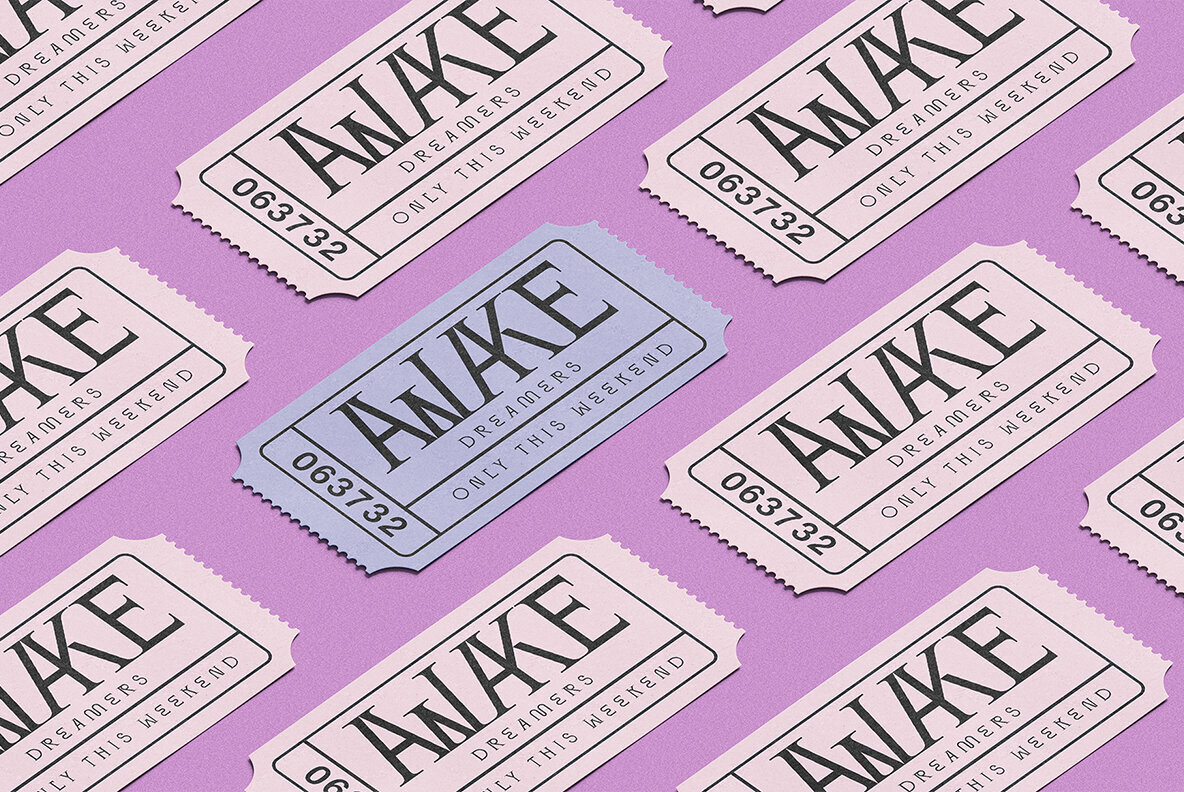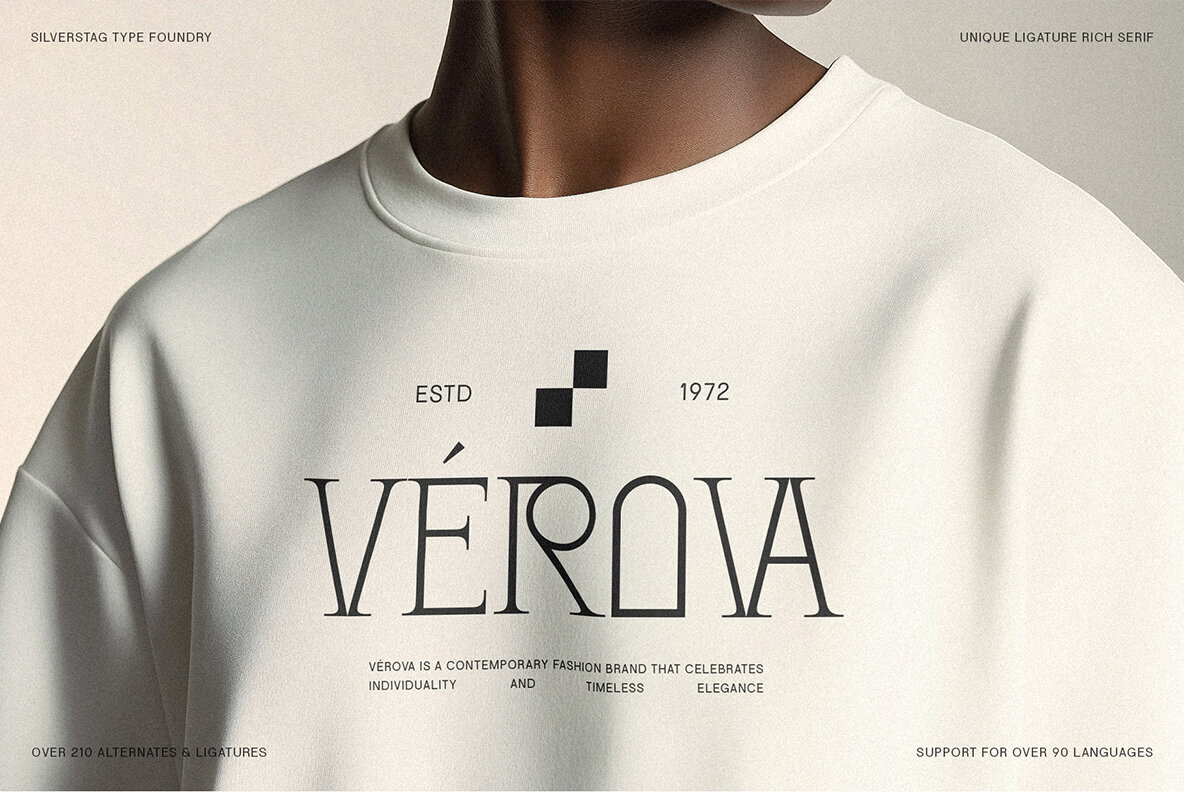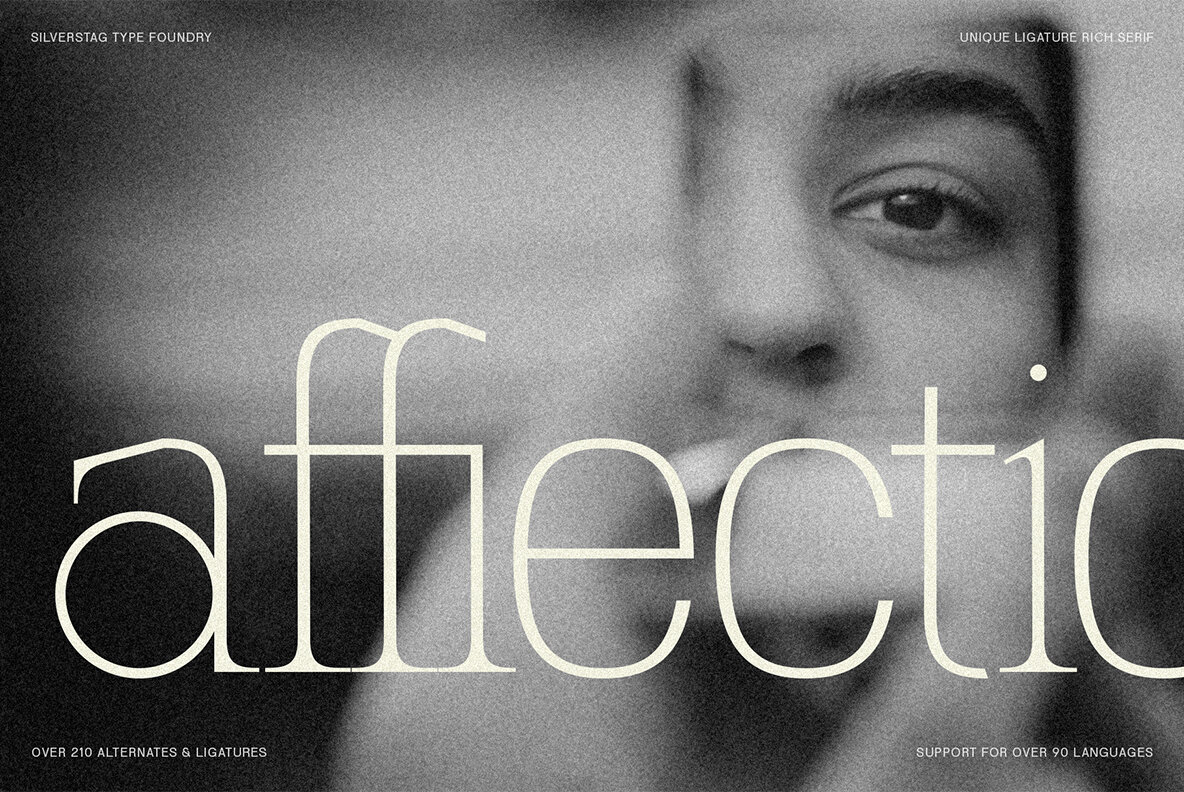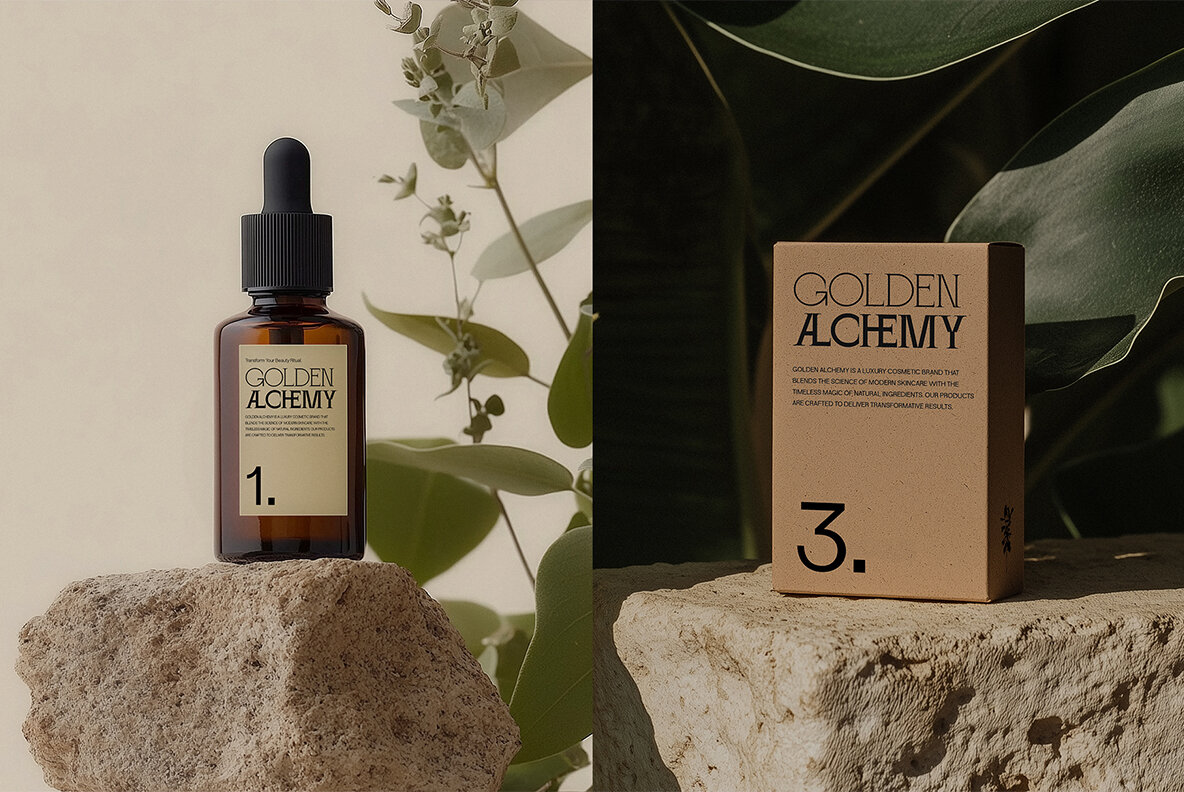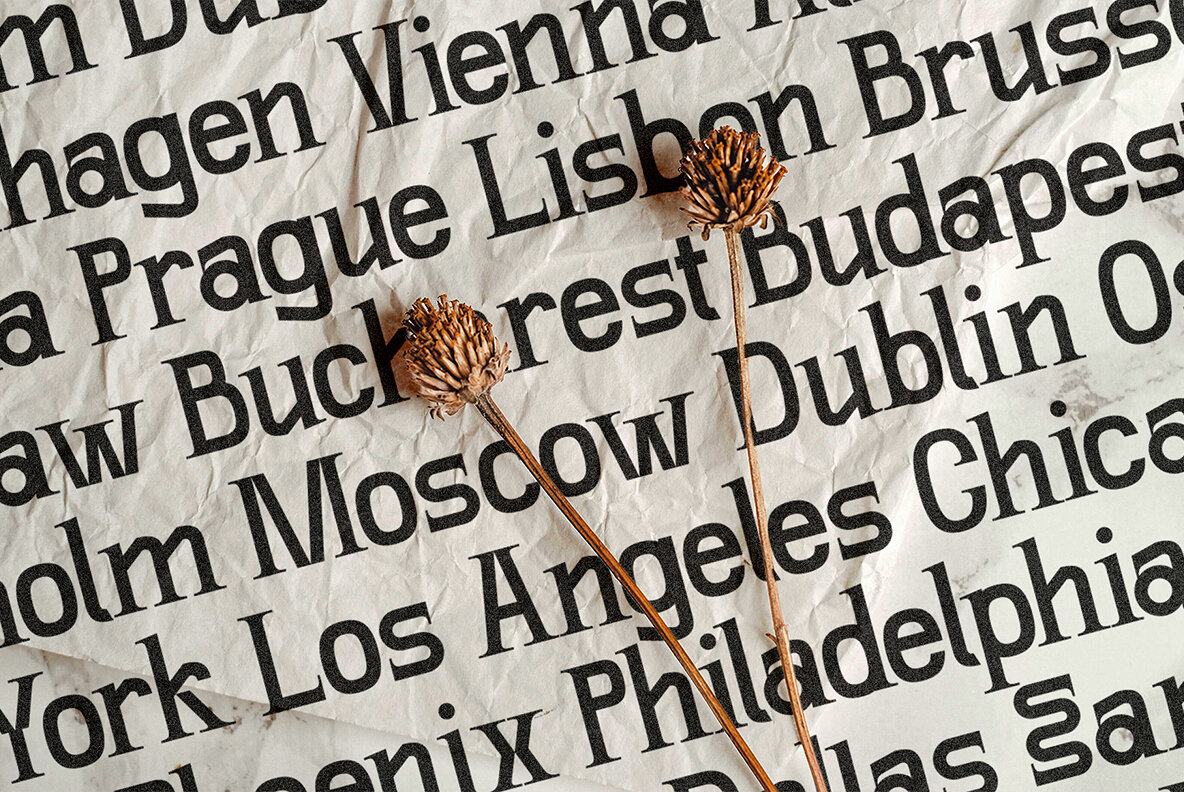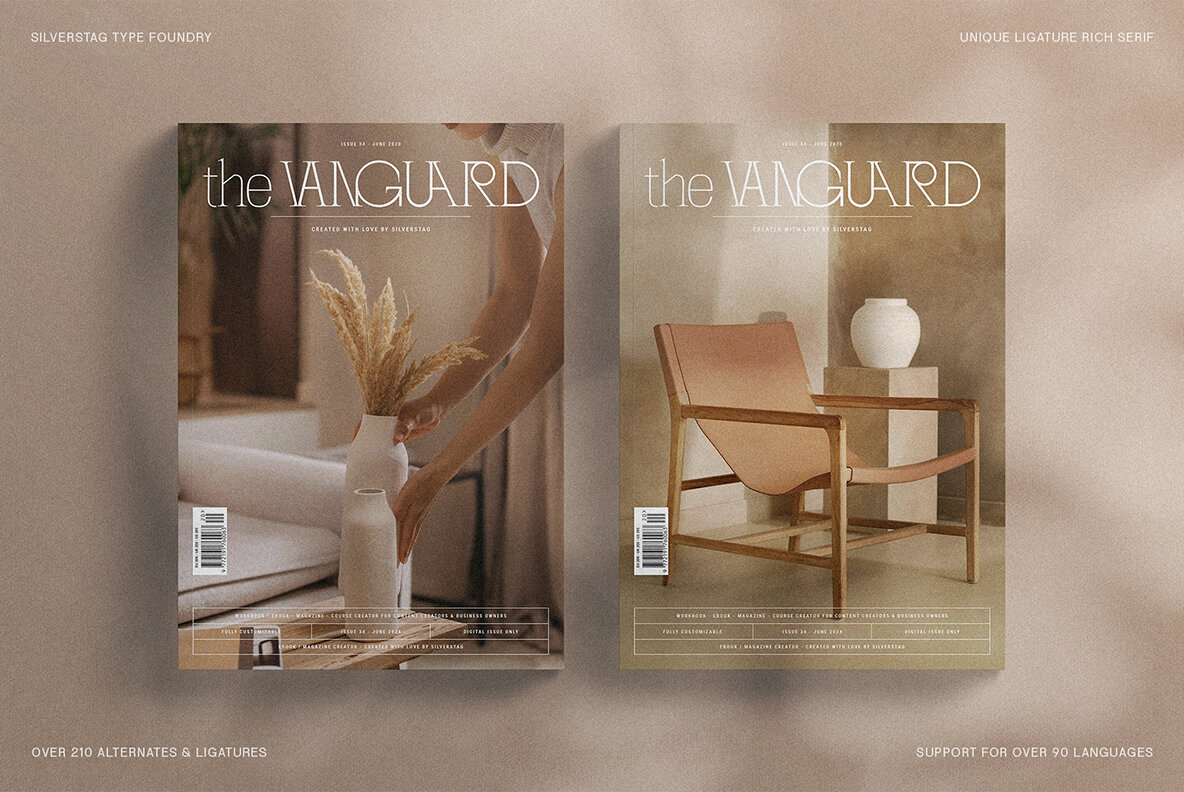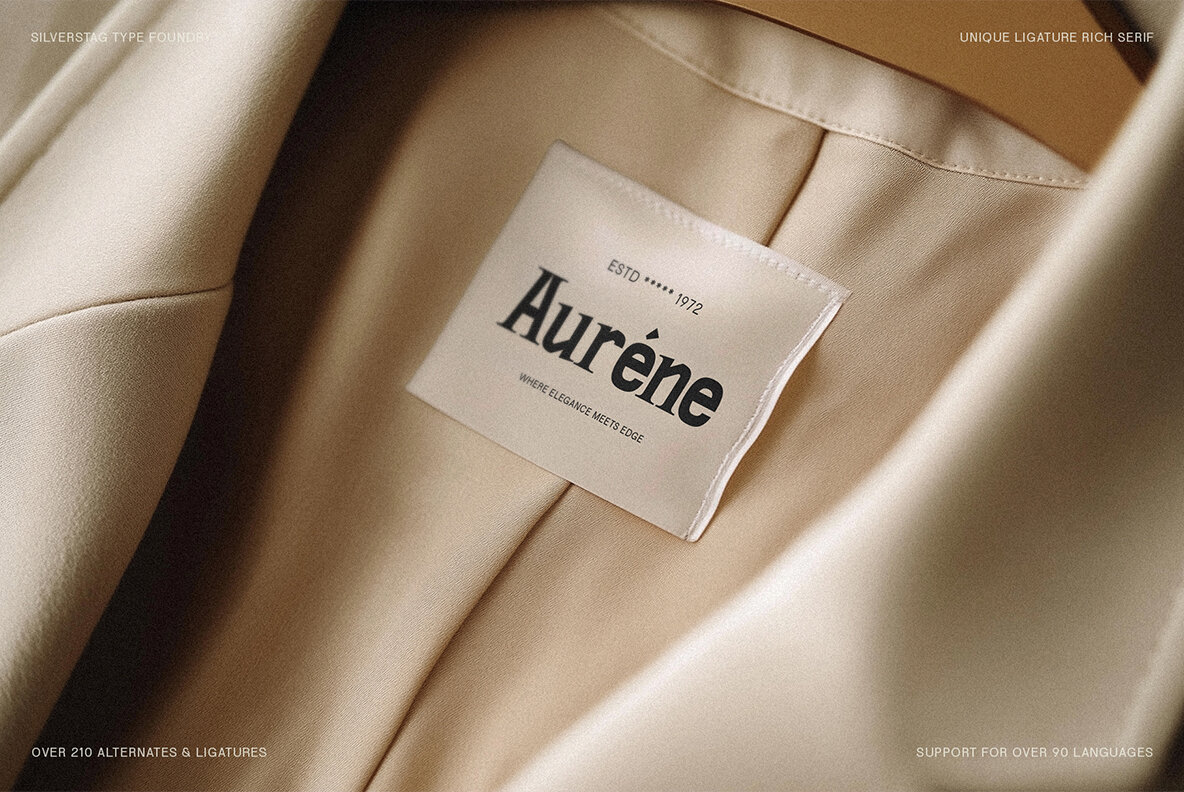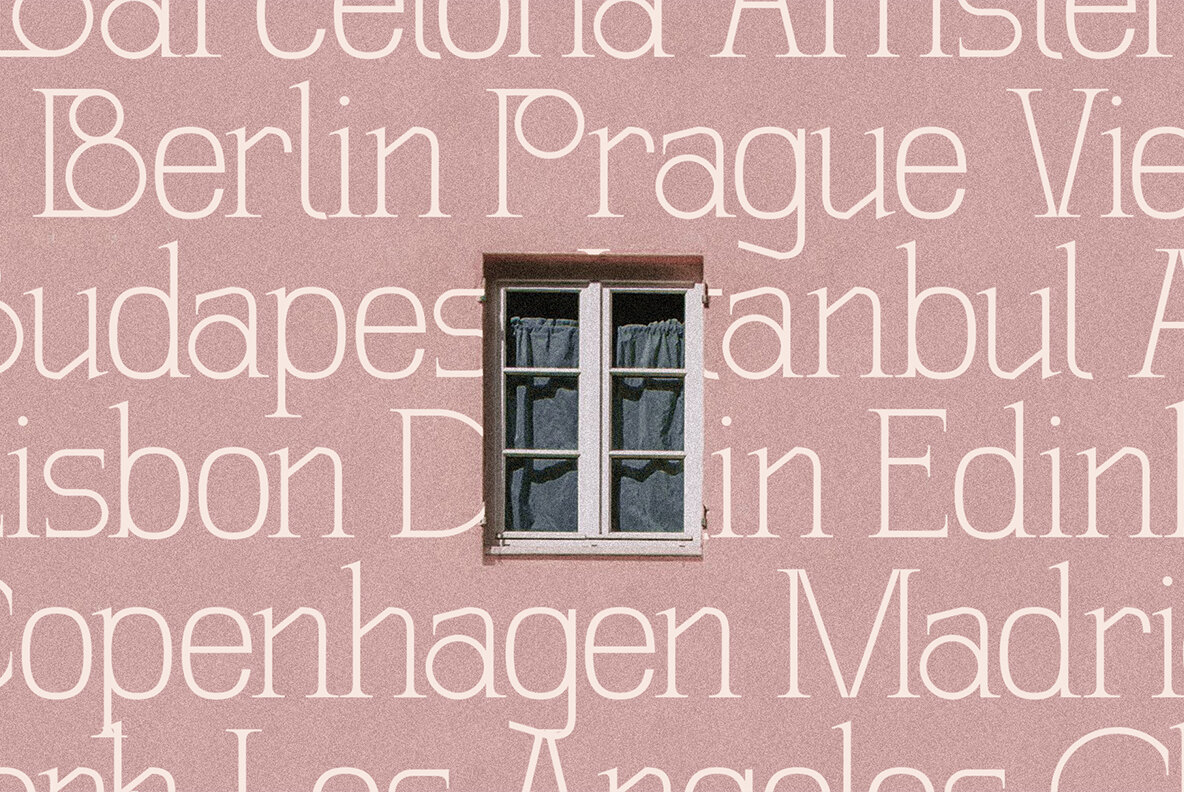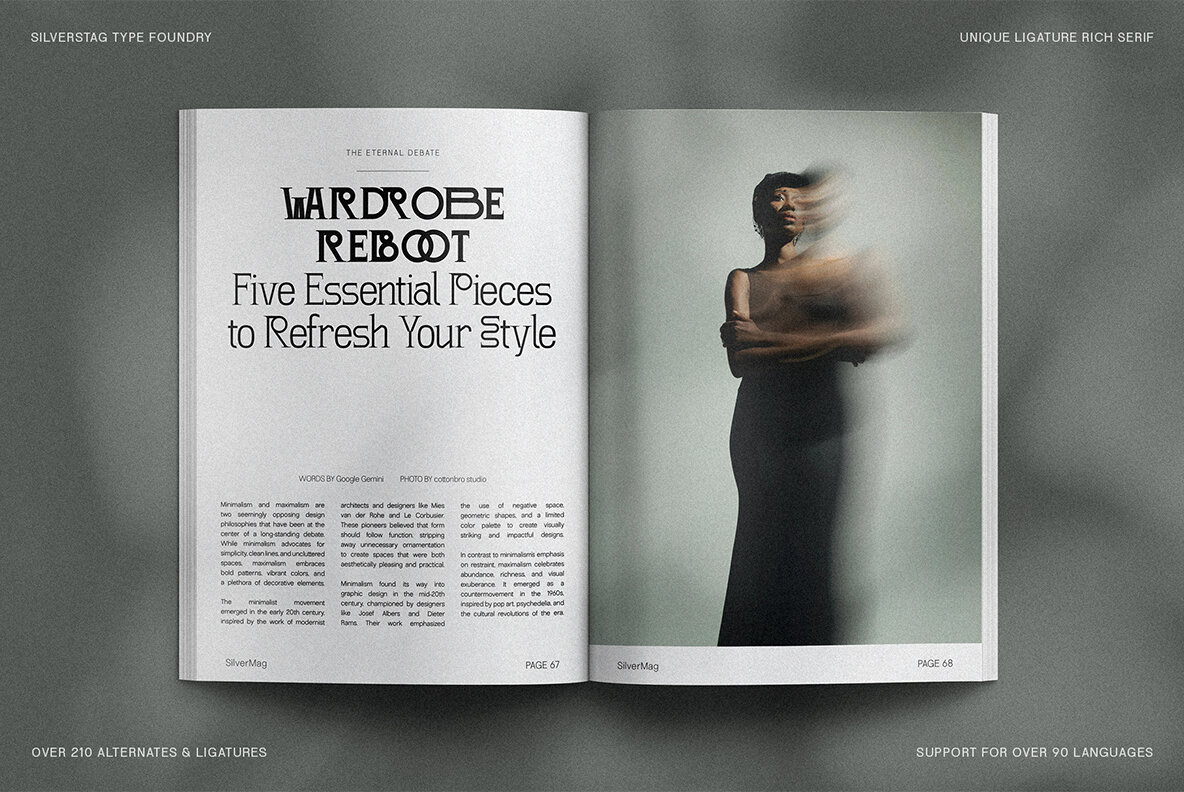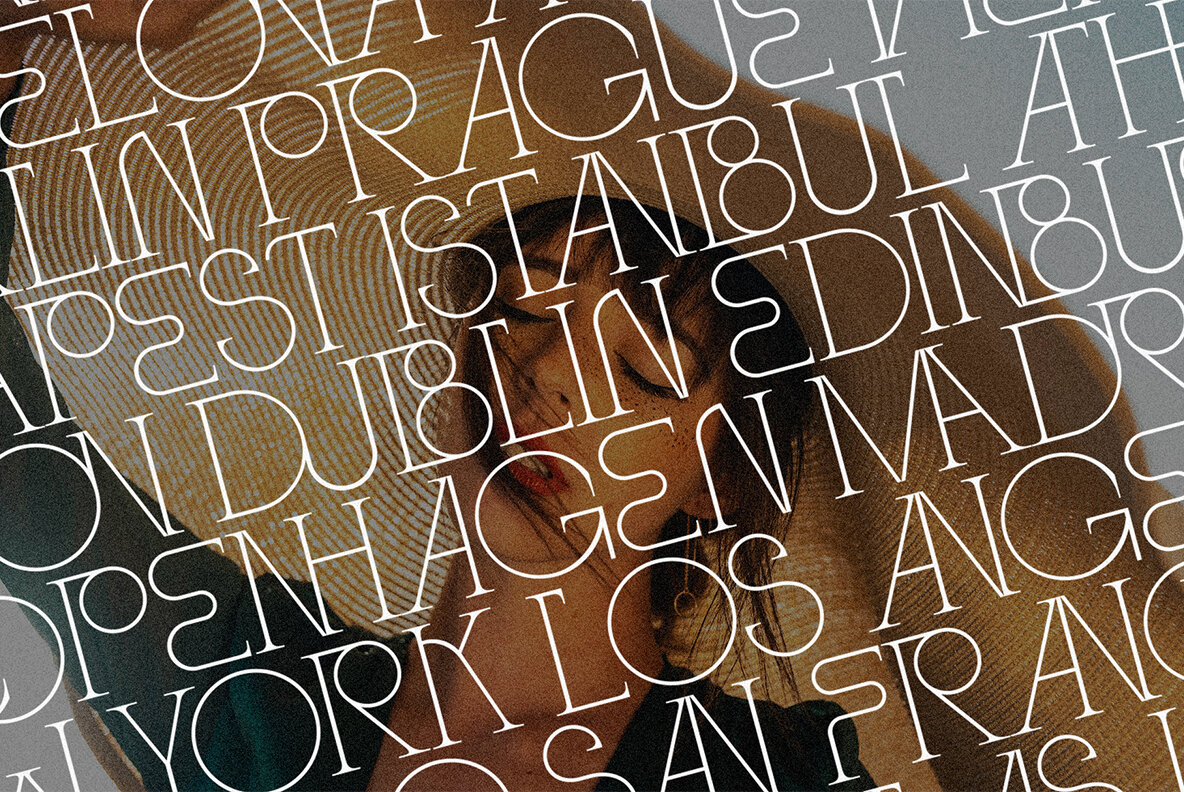
SLTF Winner Baroque Font
Introducing SLTF Winner Baroque, a sophisticated and versatile serif typeface designed to elevate your creative projects. This typeface is a harmonious blend of timeless baroque-inspired serifs and modern grotesk sans-serif influences, making it a one-of-a-kind addition to any designer’s toolkit. SLTF Winner Baroque is not just a font—it’s a bold statement of style, elegance, and functionality. What Makes SLTF Winner Baroque Unique? Perfect for These Applications: Why Choose SLTF Winner Baroque? SLTF Winner Baroque isn’t just another serif font—it’s a design powerhouse. With its rich alternates and ligatures, extensive weights, and variable font technology, it adapts to any design need, offering both creative freedom and professional precision. Whether you’re working on high-end branding, luxurious packaging, or captivating editorial layouts, this typeface ensures your work stands out. Optimized for global use with multilingual support, SLTF Winner Baroque ensures your designs communicate effectively across diverse audiences. With its modern and timeless appeal, this typeface caters to a variety of industries, including fashion, design, publishing, and luxury goods, making it a highly searched choice for professional designers. Available Now SLTF Winner Baroque is ready to transform your projects. Download it today and bring timeless elegance and modern sophistication to your designs. Add SLTF Winner Baroque to your collection and let your creativity shine. Explore the possibilities with this versatile, ligature-rich serif typeface that’s designed to impress.